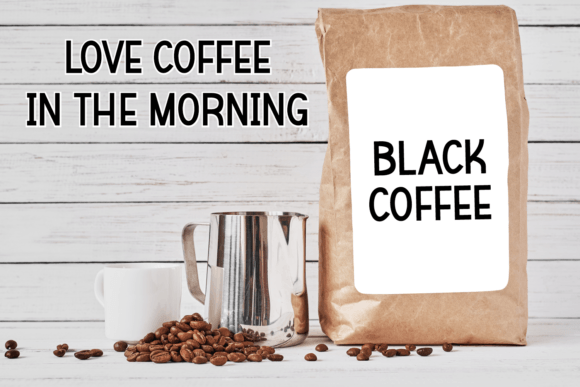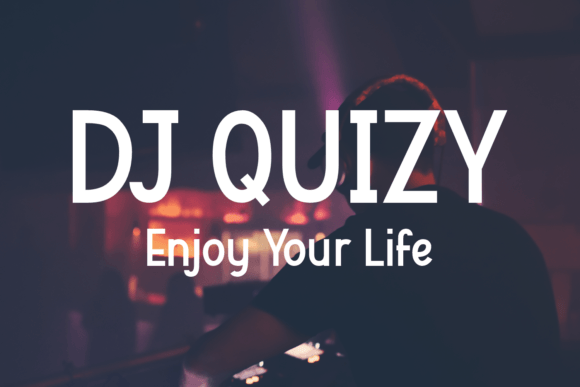
Discovering the Perfect Font: Where Creativity Meets Clarity
Have you ever stumbled upon a font that instantly sparks a wave of ideas, and you just can’t wait to bring your design to life? For many creatives, this moment is a thrill that never gets old. It’s the moment when everything clicks, and your vision starts to take shape. For those who have experienced this rush, we’re excited to introduce the Clear House Font – a sans serif masterpiece that’s making waves in contemporary design circles.
Designed to create statement-making text for a range of applications, the Clear House Font is the perfect choice for crafting trendy texts and impactful banners. Its clean lines and modern structure make it a valuable tool for designers looking to elevate their work and stand out from the crowd.
Clear House Font Key Features
- Font Family: Clear House is a sans-serif font family designed for clear and modern typography.
- Character Set: The font family includes a wide range of characters, including Latin, Cyrillic, and Greek alphabets, as well as punctuation and symbols.
- Font Sizes: Clear House Font is available in multiple weights, ranging from 100 to 900, with corresponding font sizes and line heights for optimal readability.
- Resolution: Clear House Font is designed to work at high resolutions, making it suitable for use in digital media, including screens and print materials.
- Unique Characteristics: Clear House Font features a clean, modern design with subtle rounded corners and a high x-height, making it highly legible and versatile for use in a wide range of applications.
Clear House Font Review
I recently had the chance to work with the Clear House font, and I have to say it’s been an interesting experience. Here’s my honest review:
- Unique Design**: Clear House has a distinctive, modern aesthetic that’s perfect for businesses looking to stand out from the crowd.
- Legibility**: The font is highly legible, making it a great choice for body text and headlines.
- Scalability**: Clear House looks great in various sizes, from small captions to large display text.
- Overly Bold**: The font can feel a bit too bold at times, which may not be suitable for every design project.
- Lack of Expressiveness**: While Clear House has a unique design, it can feel a bit stiff and lacking in expressiveness.
- May Not Suit All Industries**: The font’s modern aesthetic may not be the best fit for more traditional or conservative industries.
Overall, I think Clear House is a solid choice for designers looking for a modern, unique font. However, it may not be the best fit for every project. With a bit of careful consideration and styling, Clear House can be a great addition to your design toolkit.
Clear House Font is ideal for creating modern and elegant designs. Use it for:
– Headings and titles
– Body text for quotes or testimonials
– Logos and branding materials
– Social media graphics and ads
– Editorial and publishing content
Alternatives to Clear House Font
Montserrat is a sans-serif font designed by Julieta Ulanovsky. It’s a modern, geometric font perfect for headlines and titles. Use it when you need a clean and minimalist look for your design. Montserrat is more geometric and condensed compared to Clear House Font, making it ideal for digital interfaces and mobile apps.
Open Sans is a clean and modern sans-serif font designed by Steve Matteson. It’s highly legible and suitable for body text and titles. Use it when you need a neutral and professional font for your design. Open Sans is more rounded and friendly compared to Clear House Font, making it ideal for corporate and editorial designs.